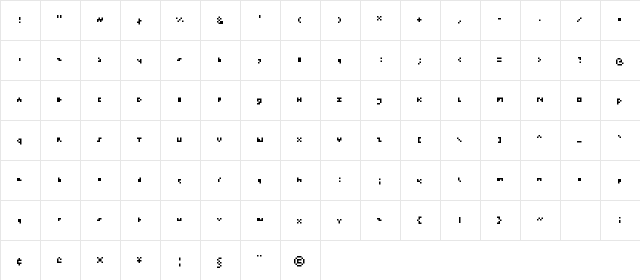
pearfont Medium
pearfont takes a measured approach to typography — its balanced proportions and neutral character make it a reliable workhorse for both digital and print work.